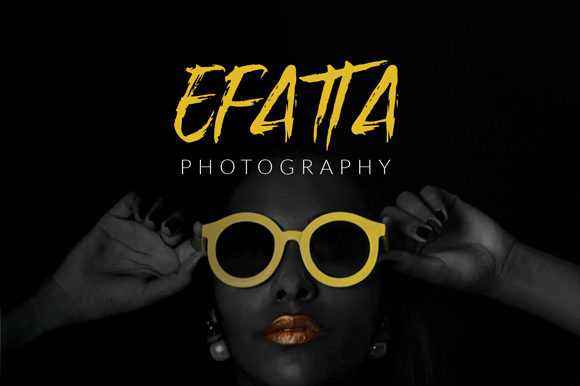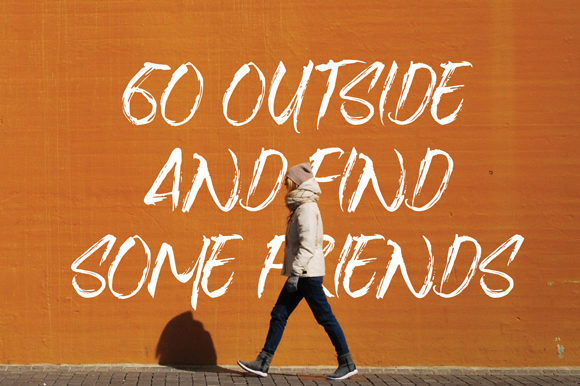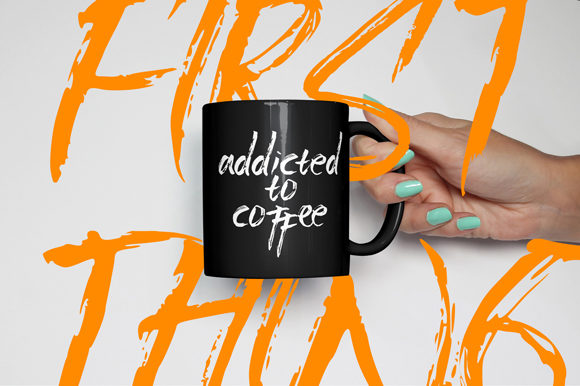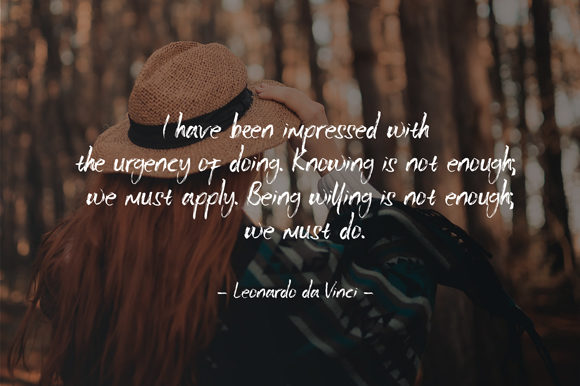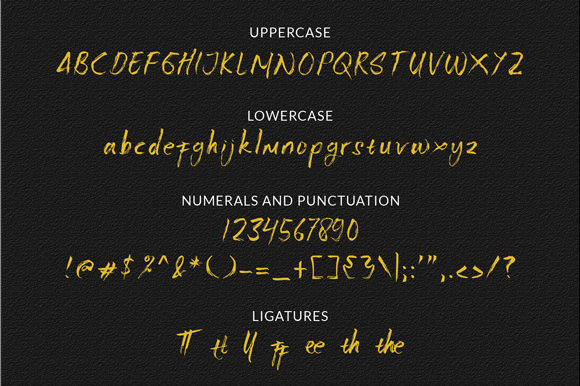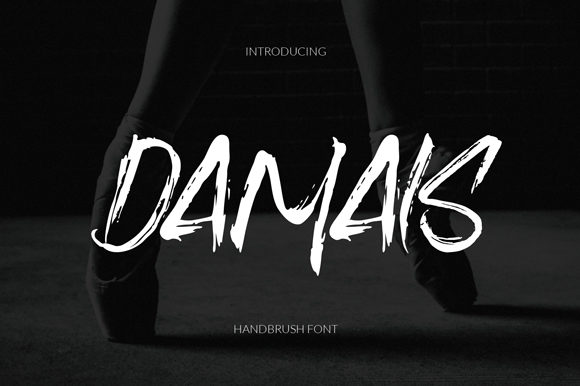
Introducing Damais Font: A Bold and Charming Display Font for Your Design Projects
In the world of typography, a good font can make all the difference in a design project. It’s what sets the tone, conveys the message, and captures the audience’s attention. If you’re a designer or crafter looking for a font that’s both bold and charming, look no further than Damais Font. Inspired by original handwriting, Damais is a display font that’s perfect for a multitude of design projects.
What is Damais Font?
Damais Font is a modern display font that’s designed to make a statement. With its bold and charming personality, it’s perfect for designers and crafters who want to add a touch of elegance and sophistication to their projects. The font is inspired by original handwriting, giving it a unique and personal feel that’s sure to capture the audience’s attention.
Key Features of Damais Font
- Bold and Charming: Damais Font is a bold and charming display font that’s perfect for making a statement in your design projects.
- Inspired by Original Handwriting: The font is inspired by original handwriting, giving it a unique and personal feel.
- Multitude of Design Projects: Damais Font is versatile and can be used for a multitude of design projects, from branding and advertising to packaging and more.
- Elegant and Sophisticated: The font has an elegant and sophisticated feel that’s perfect for designers and crafters who want to add a touch of luxury to their projects.
Uses for Damais Font
Damais Font is a versatile font that can be used for a wide range of design projects. Here are some ideas to get you started:
- Branding and Advertising: Use Damais Font to create bold and eye-catching logos, advertisements, and marketing materials.
- Packaging: Add a touch of elegance and sophistication to your product packaging with Damais Font.
- Signage: Use Damais Font to create eye-catching signs and displays that are sure to capture the audience’s attention.
- Stationery: Add a touch of luxury to your stationery and correspondence with Damais Font.
- Digital Media: Use Damais Font to create engaging and interactive digital media, such as social media graphics and website headers.
Why Choose Damais Font?
There are many fonts to choose from, but Damais Font stands out from the rest. Here are some reasons why:
- Unique and Personal: Damais Font has a unique and personal feel that’s inspired by original handwriting.
- Bold and Charming: The font is bold and charming, making it perfect for designers and crafters who want to make a statement.
- Versatile: Damais Font is versatile and can be used for a multitude of design projects.
- Elegant and Sophisticated: The font has an elegant and sophisticated feel that’s perfect for designers and crafters who want to add a touch of luxury to their projects.
Tips for Using Damais Font
Here are some tips for using Damais Font in your design projects:
- Use it as a Display Font: Damais Font is perfect for use as a display font, where it can make a bold and eye-catching statement.
- Pair it with Other Fonts: Experiment with pairing Damais Font with other fonts to create a unique and interesting look.
- Use it in Large Sizes: Damais Font is perfect for use in large sizes, where it can make a bold and dramatic statement.
- Experiment with Colors: Try experimenting with different colors and textures to add depth and interest to your design.
In conclusion, Damais Font is a bold and charming display font that’s perfect for designers and crafters who want to add a touch of elegance and sophistication to their projects. With its unique and personal feel, versatile uses, and elegant and sophisticated style, Damais Font is a great choice for a wide range of design projects. So why not give it a try and see the difference it can make in your designs?